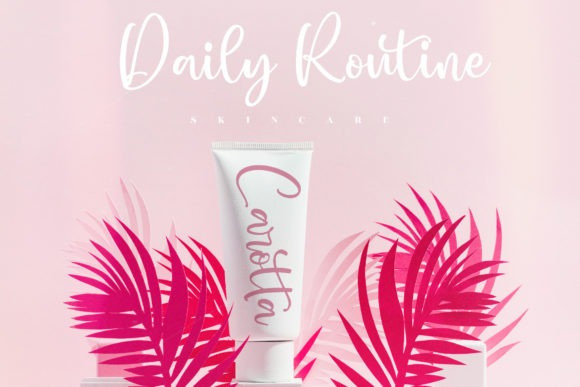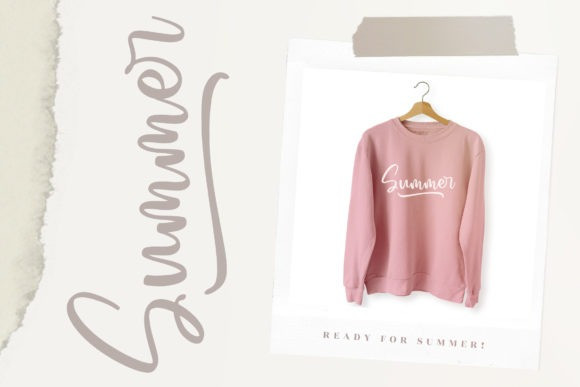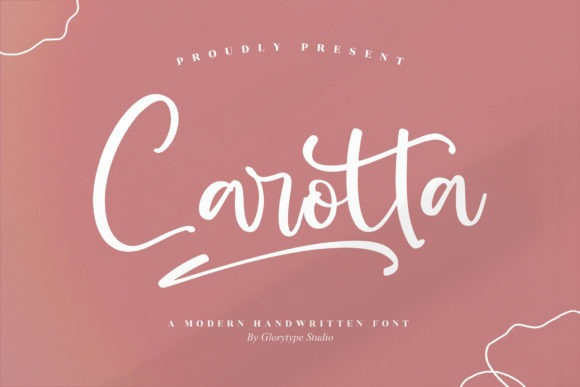
Carotta Script Font
Carotta Script Font – Modern Handwritten Font suitable for any projects such as logos, branding projects, homeware designs, product packaging, mugs, quotes, posters, shopping bags, t-shirts, book covers, name cards, invitation cards, greeting cards, label, photography, watermark, special events, and all your other lovely projects that need a beautiful script taste.